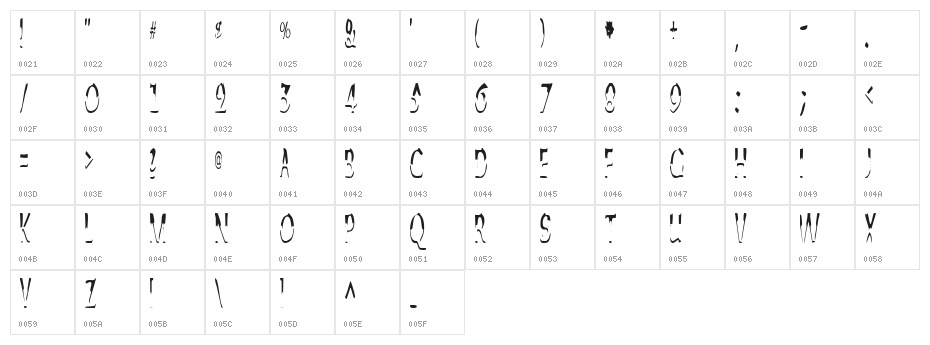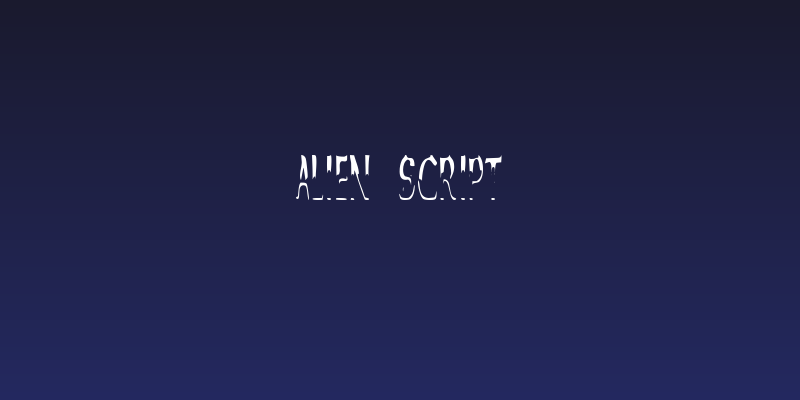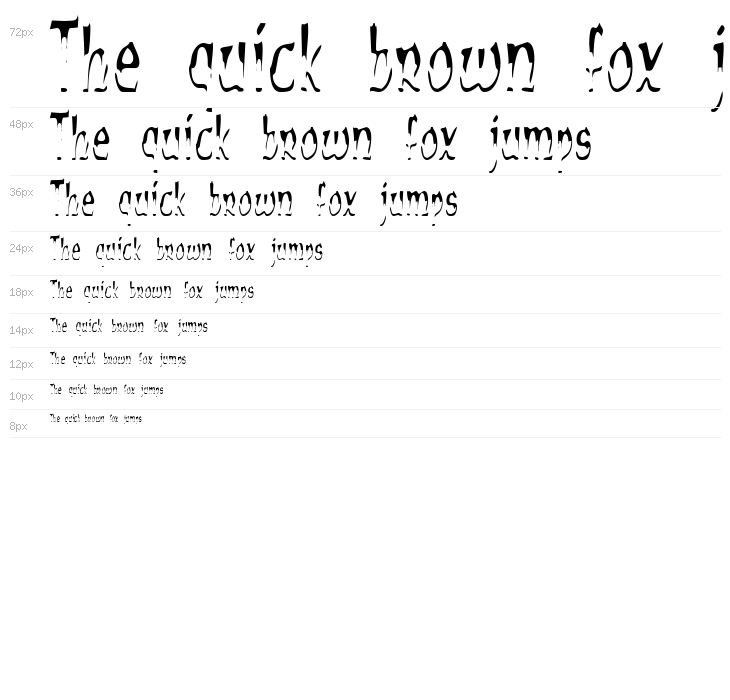
Alien Script Font
Alien Script Description
This font features a highly decorative and abstract design, reminiscent of alien or futuristic themes. The characters are uniquely stylized with irregular shapes and varying line thicknesses, creating an otherworldly appearance. The uppercase letters are bold and striking, while the lowercase letters maintain a consistent style with slightly more subtlety. Numbers and special characters follow the same design principles, ensuring a cohesive look across all elements. The font's distinctiveness makes it ideal for creative projects that require a touch of the extraordinary.
| Overall Style | Futuristic, Decorative |
| Proposed Projects | Ideal for sci-fi themed posters, video game titles, movie credits, and creative branding projects. |